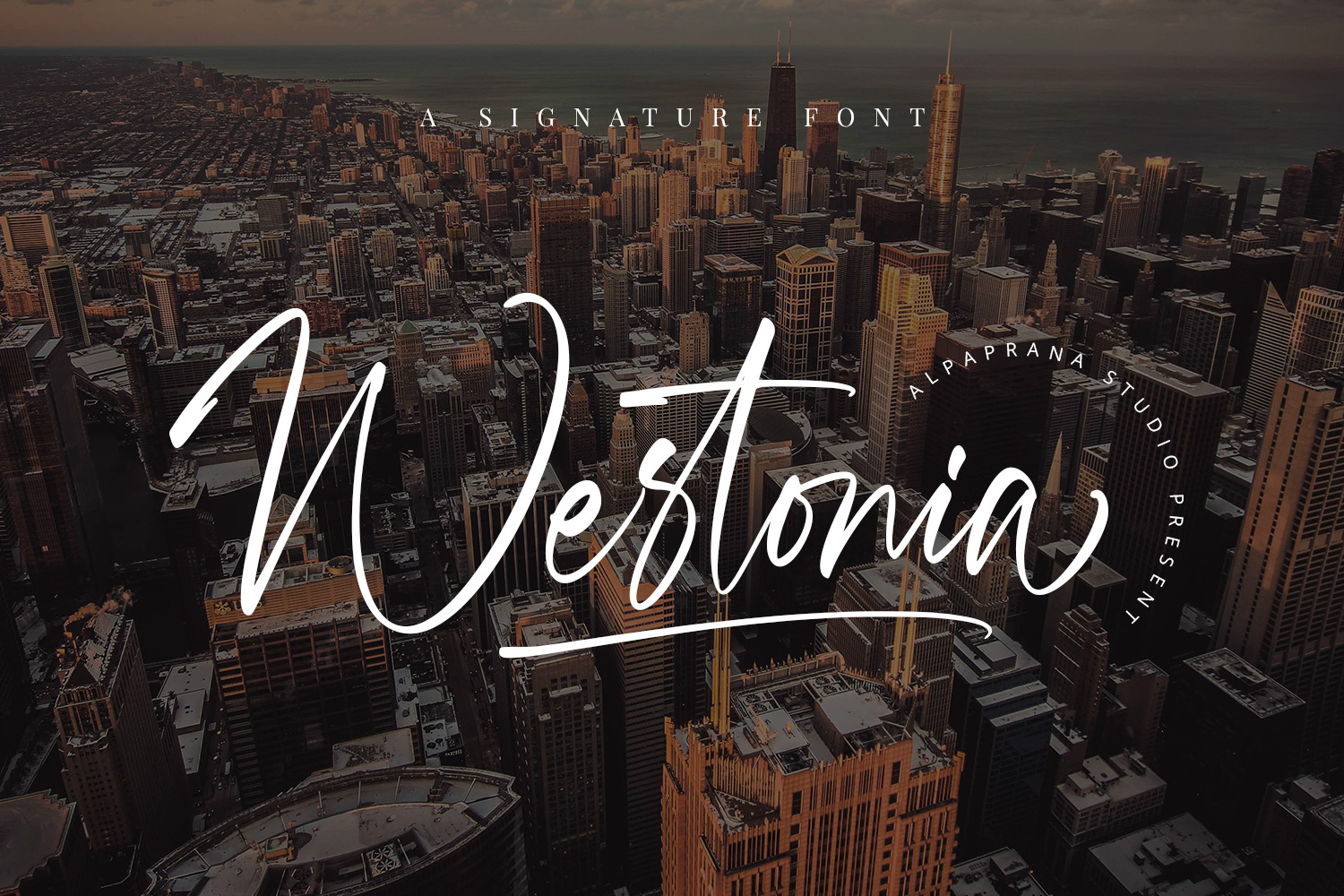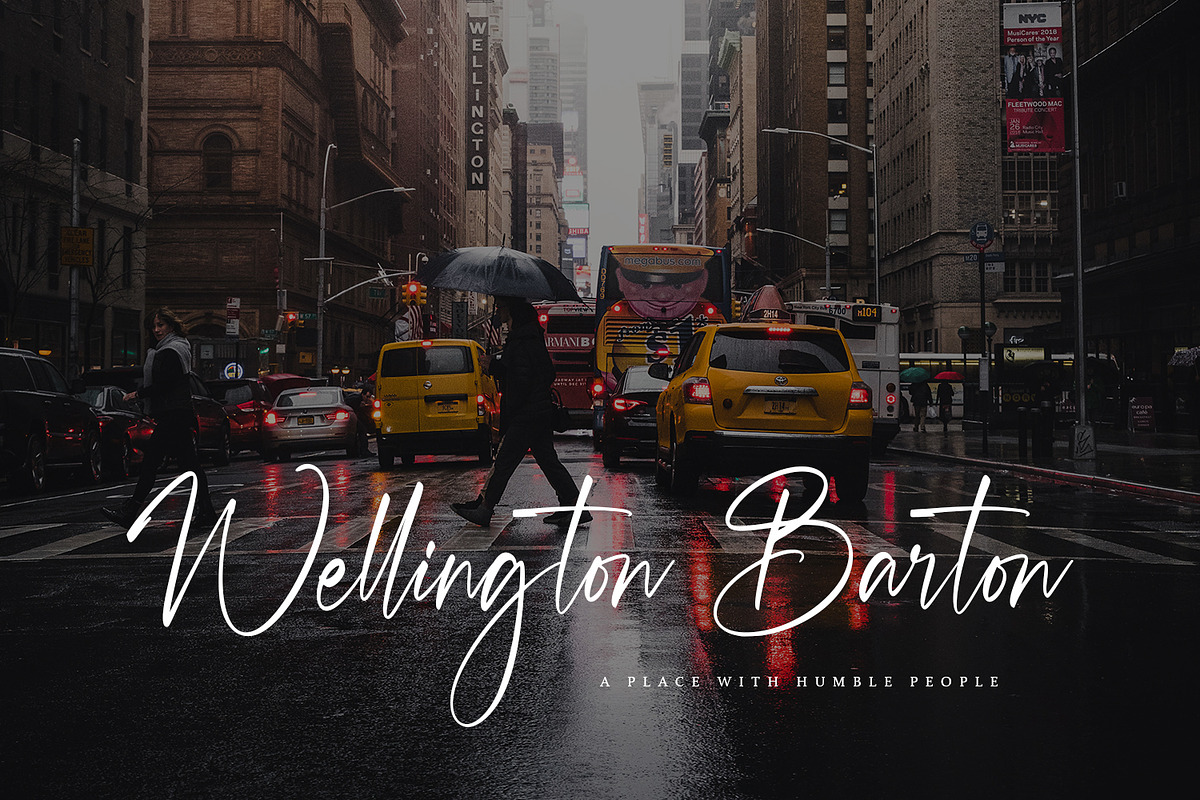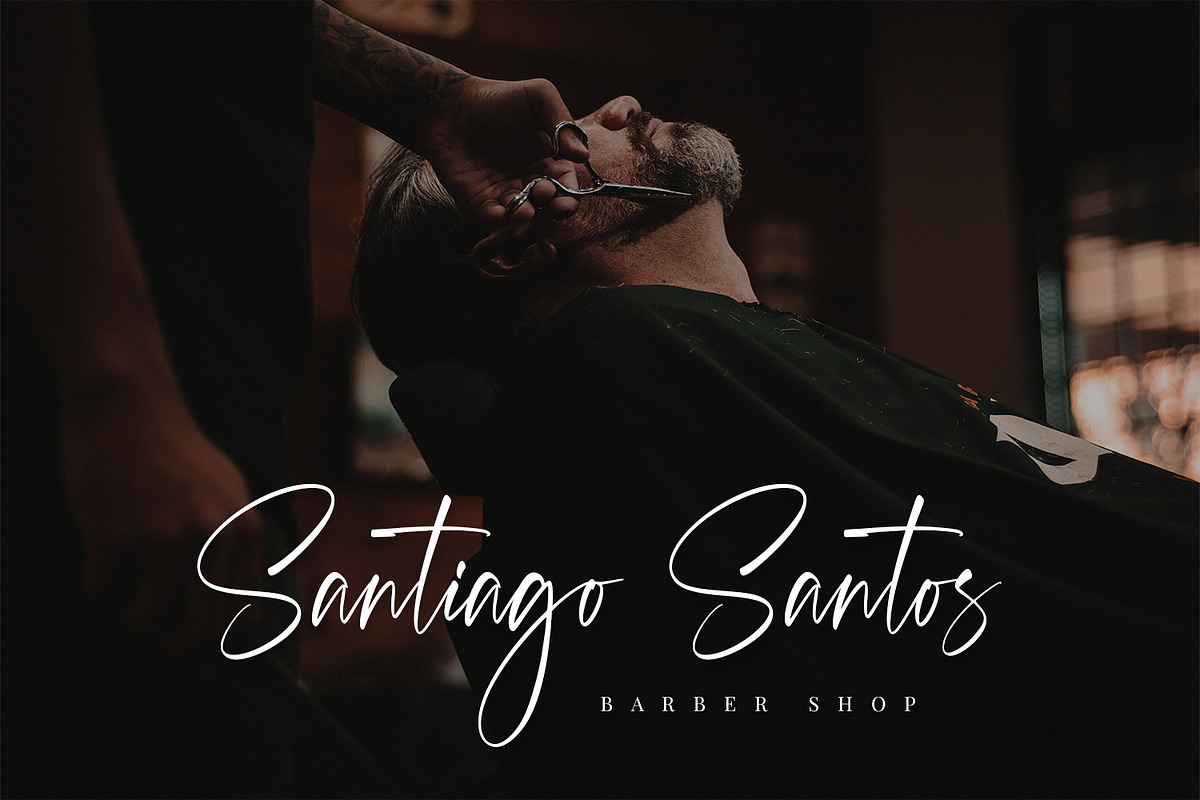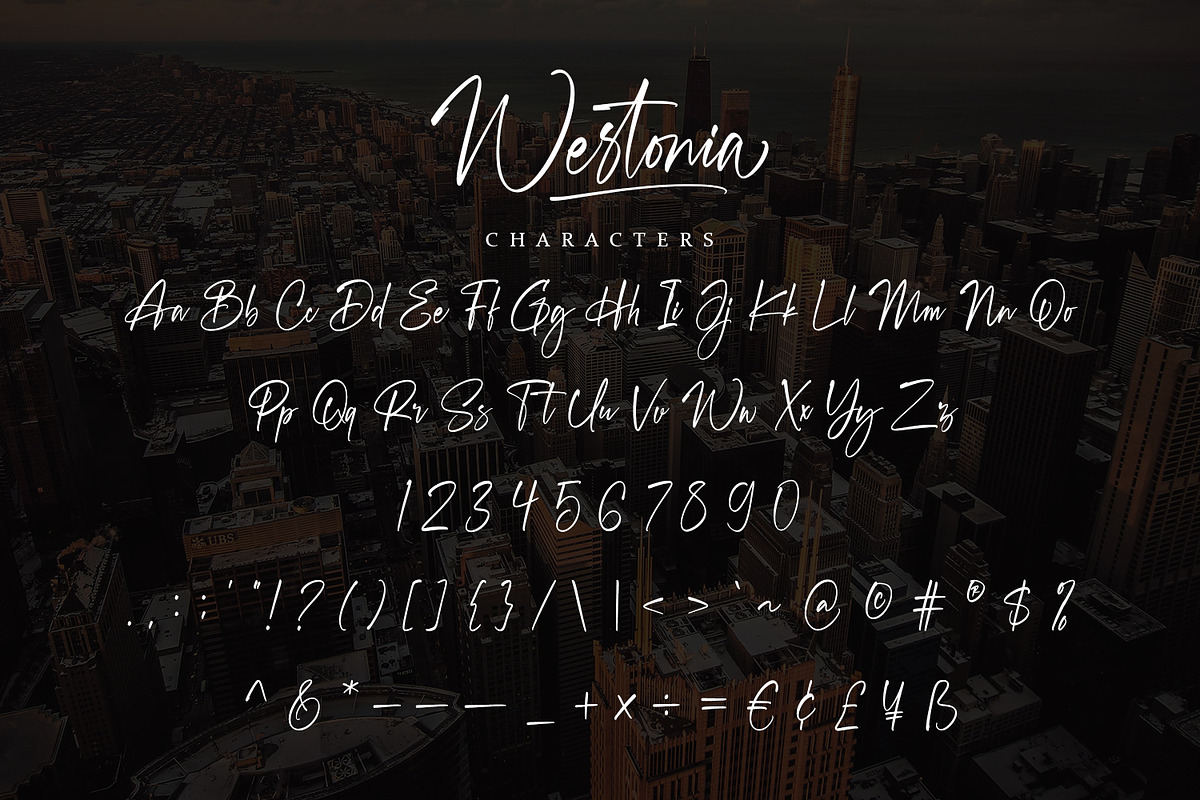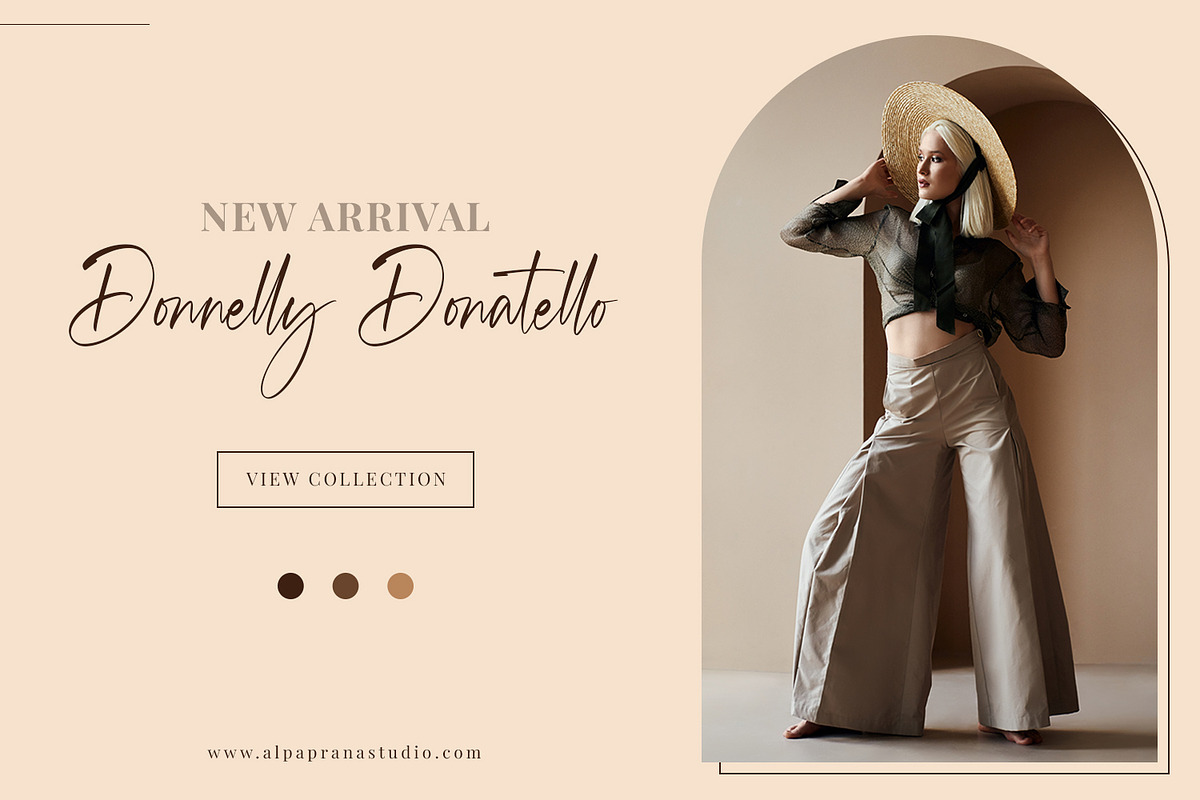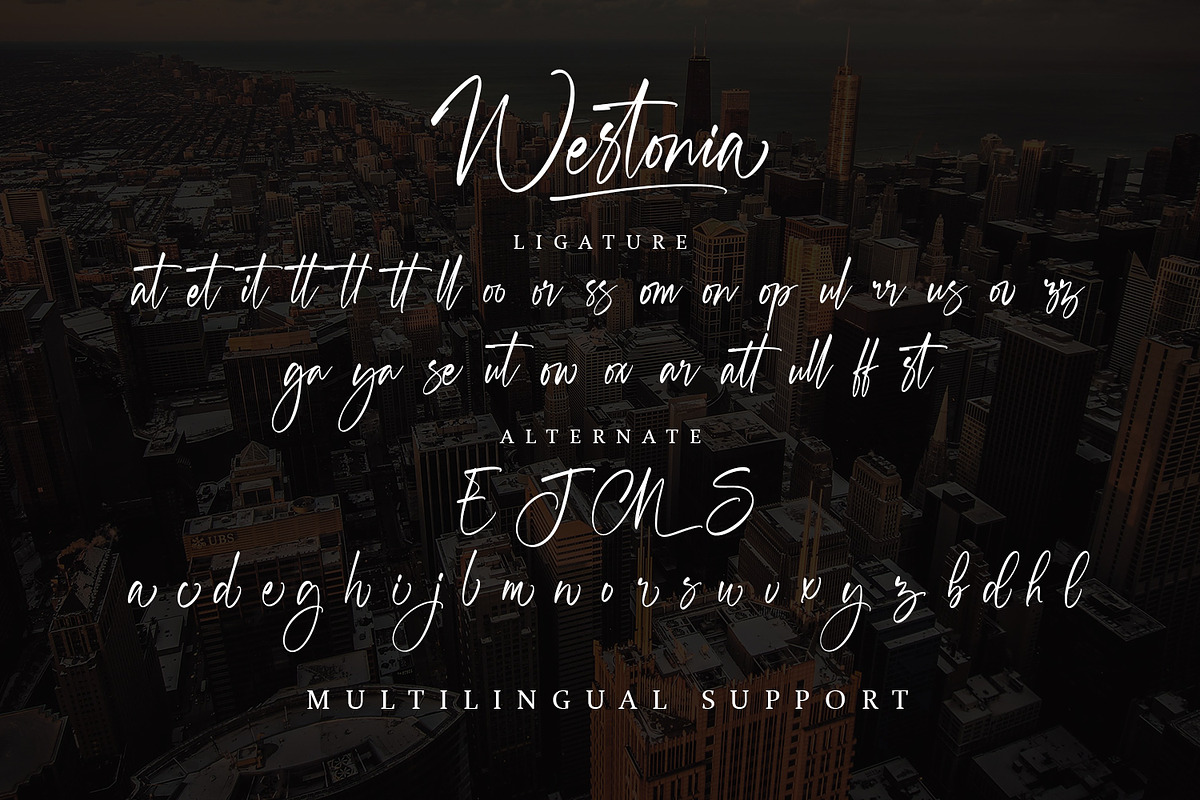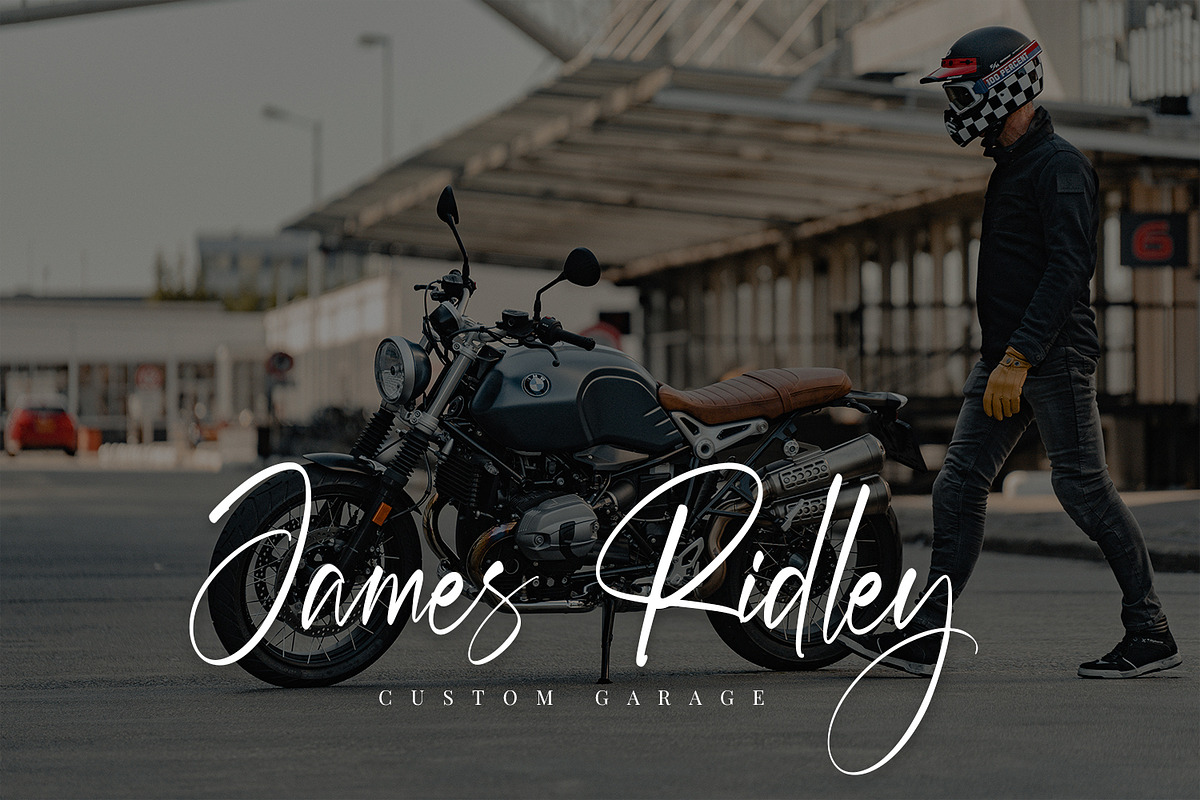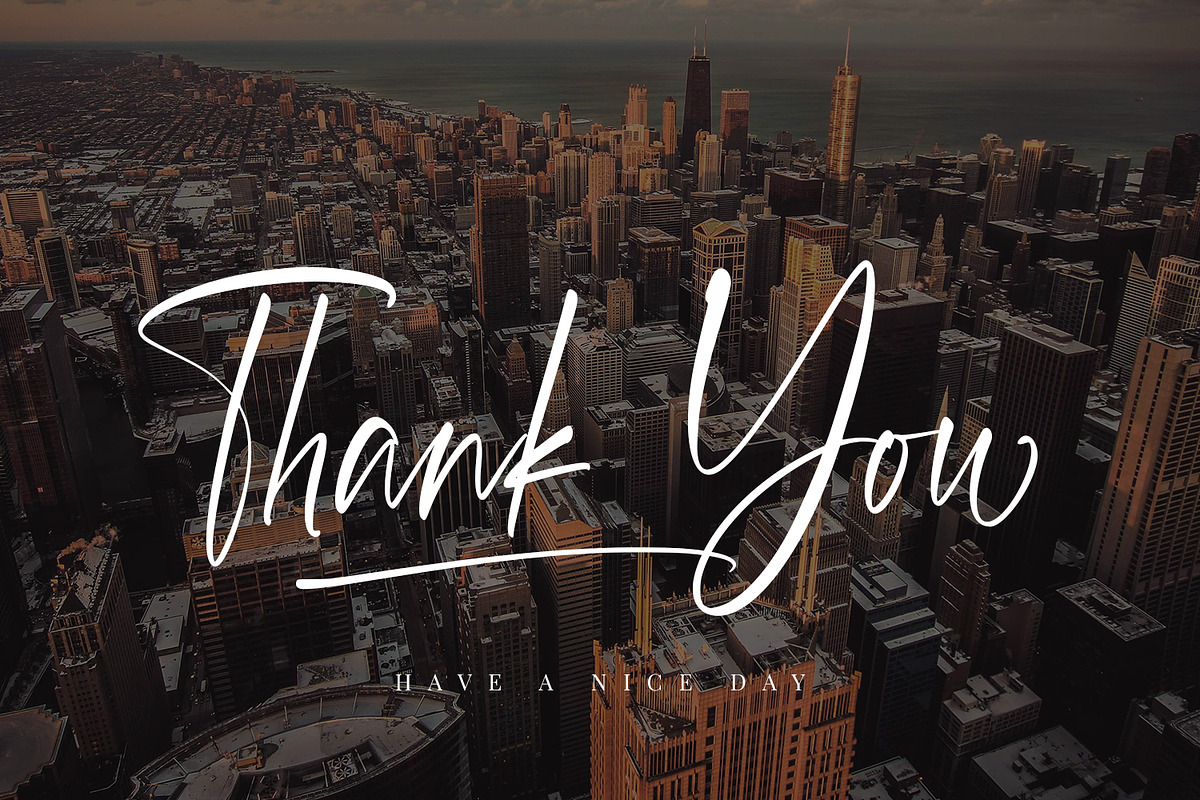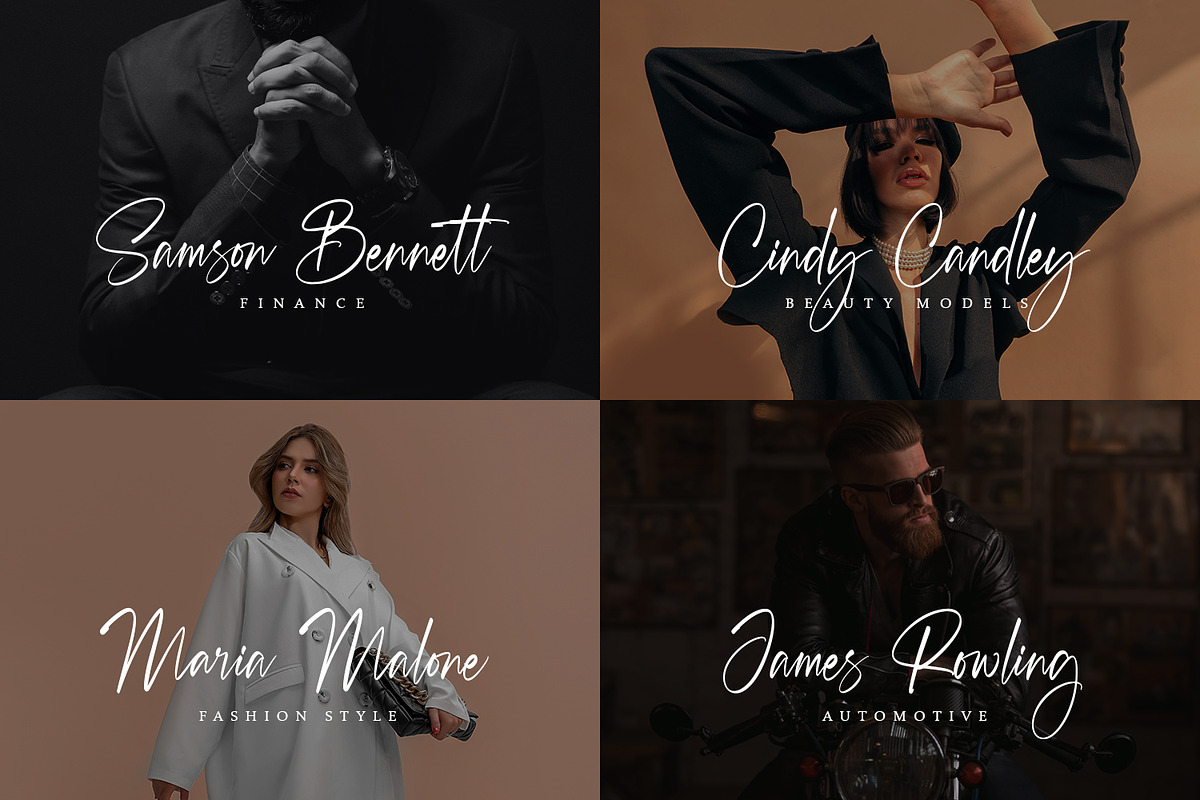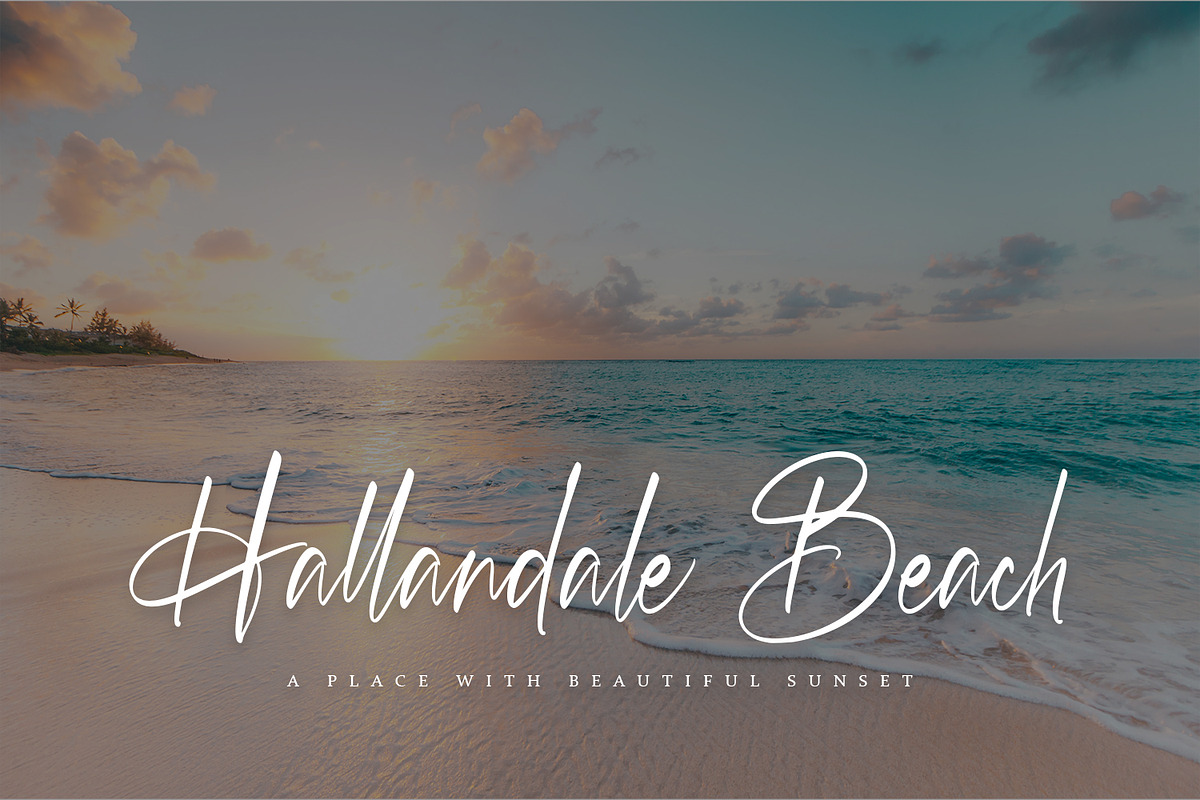
Westonia - Signature Font
Westonia is an elegant signature font with authentic and casual feels. It will be perfectly used for Branding, Logo Design, Lettering, Logotype, Clothing, Poster, magazine, packaging, posters, shopping bags, t-shirts, book covers, photography, special events and other design project.